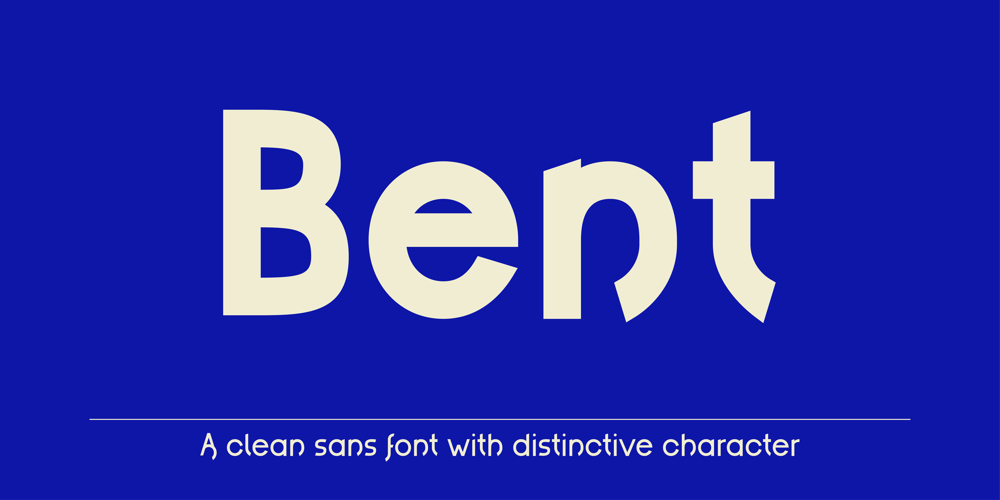
Bent Sans
Bent Sans font
Bent Sans Font Family was designed by published by Yazaroo. Bent Sans contains 6 styles and family package options. Bent Sans is a clean geometric font with a distinctive bend. Available in 6 Variations and extended Latin languages. The concept behind the font was to create something that looked like it had been dropped. Something clean and classic but with minor damage. It’s perfect for anyone looking for that clean, easy-to-read typeface with a kick of personality.